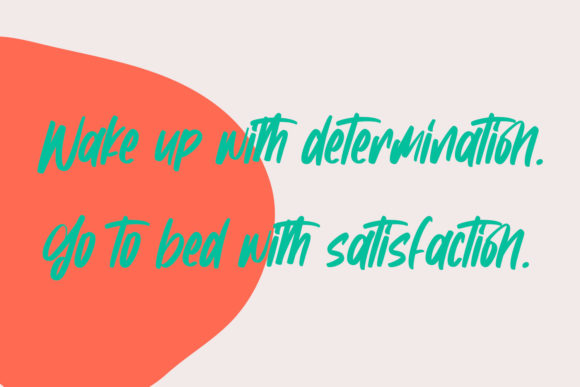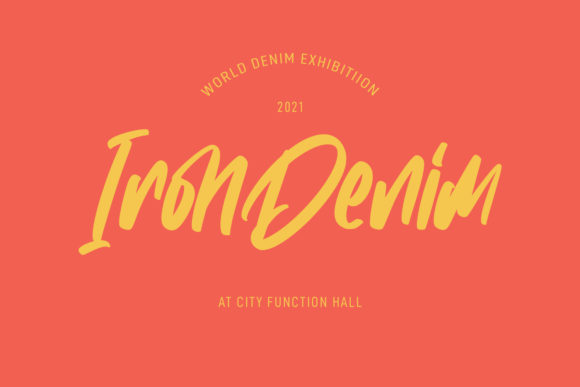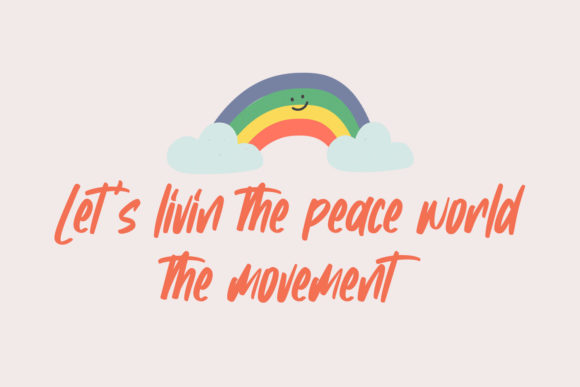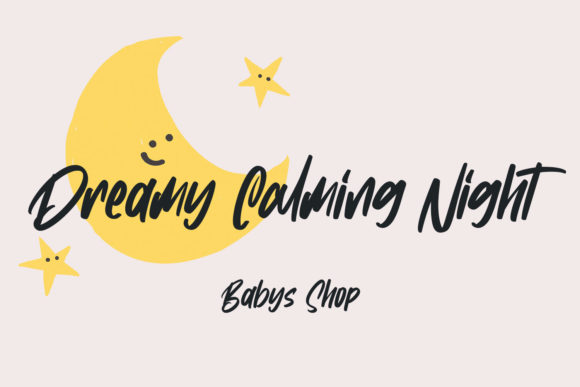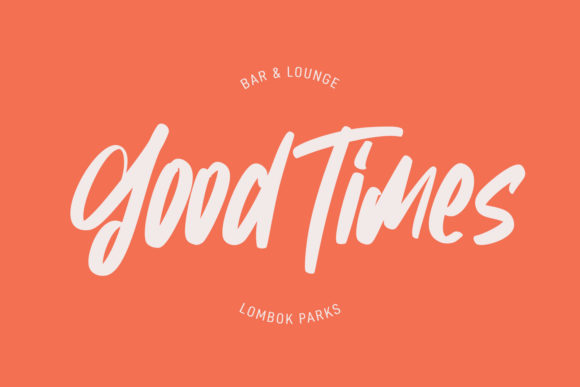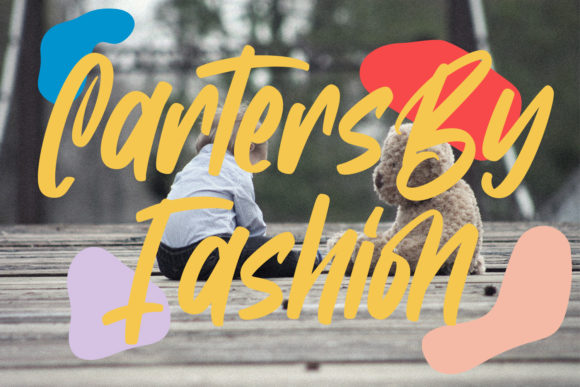
Introduction to Lemonhead Font
Lemonhead is a casual and paint brushed handwritten font.
It will elevate a wide range of crafting ideas, from cards, to branding, labels and much more Add it confidently to your favorite creations and let yourself be amazed by the outcome generated.
Lemonhead Font offers exceptional quality and versatility, making it a valuable addition to your design toolkit. Whether you’re creating for personal projects or commercial use, Lemonhead Font delivers professional results.